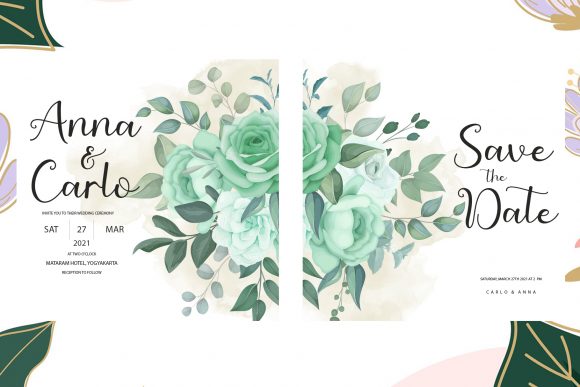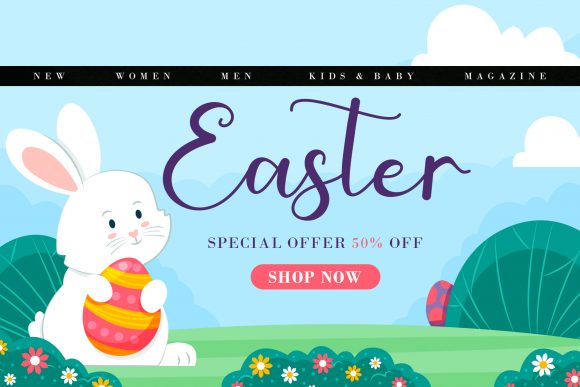
Romantic Spring Font
Romantic Spring is a beautiful light handwritten font with a unique feel and a stunning impact. It will add a luxury spark to any design project that you wish to create! This font is PUA encoded which means you can access all of the amazing glyphs and ligatures with ease!